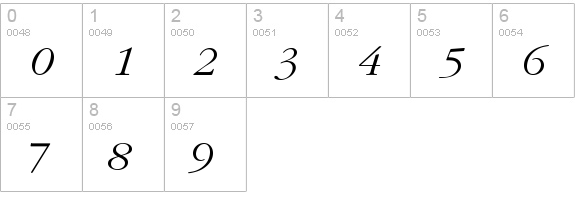
GaramondEF-LightItalic font is a timeless and elegant typeface that exudes sophistication and grace. With its delicate and slanted italic design, this font adds a touch of finesse to any project. The light weight of the font creates a sense of airy and effortless beauty, making it perfect for elegant invitations, formal documents, or refined branding materials. What sets GaramondEF-LightItalic font apart is not only its exquisite design, but also its accessibility. This font is freely available to download at FontsMarket.com, allowing designers, artists, and creators of all kinds to add a touch of elegance to their work without any limitations. Whether you are a professional graphic designer or a hobbyist, this font provides you with a high-quality and visually stunning option that will elevate your designs to the next level. The GaramondEF-LightItalic font is a versatile choice, suitable for both print and digital media. Its clear and legible letterforms ensure readability, even at smaller sizes. The subtle curves and unique serifs of this font create a harmonious balance between classic and contemporary design, making it a timeless choice that will never go out of style. Whether you are designing a wedding invitation, a book cover, a logo, or any other creative project, GaramondEF-LightItalic font is the perfect companion. Its elegance and sophistication will add a touch of class to any design, while its versatility ensures it can be used across various platforms and mediums. Experience the beauty and elegance of GaramondEF-LightItalic font by downloading it for free at FontsMarket.com. Embrace the timeless charm of this font and elevate your designs to new heights with its exquisite and refined aesthetic.